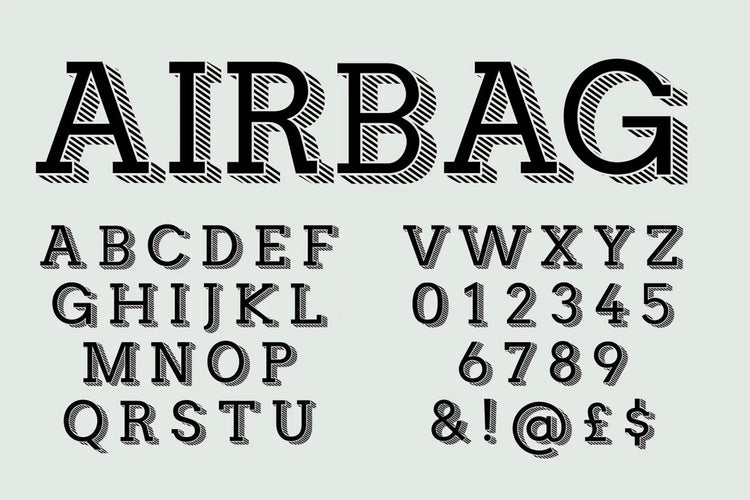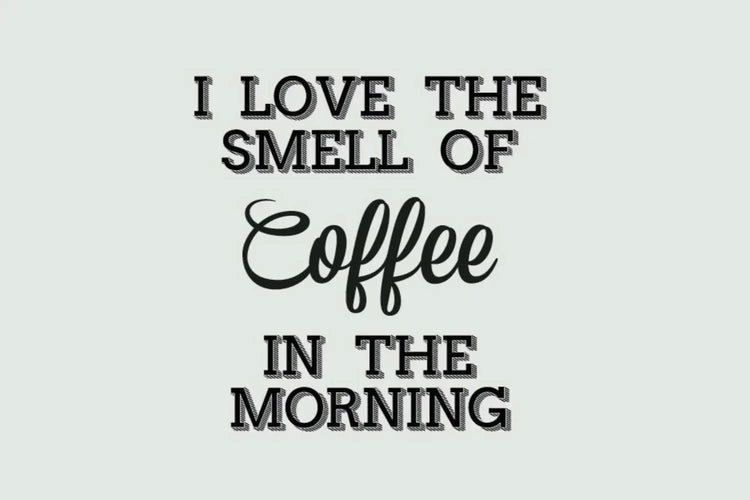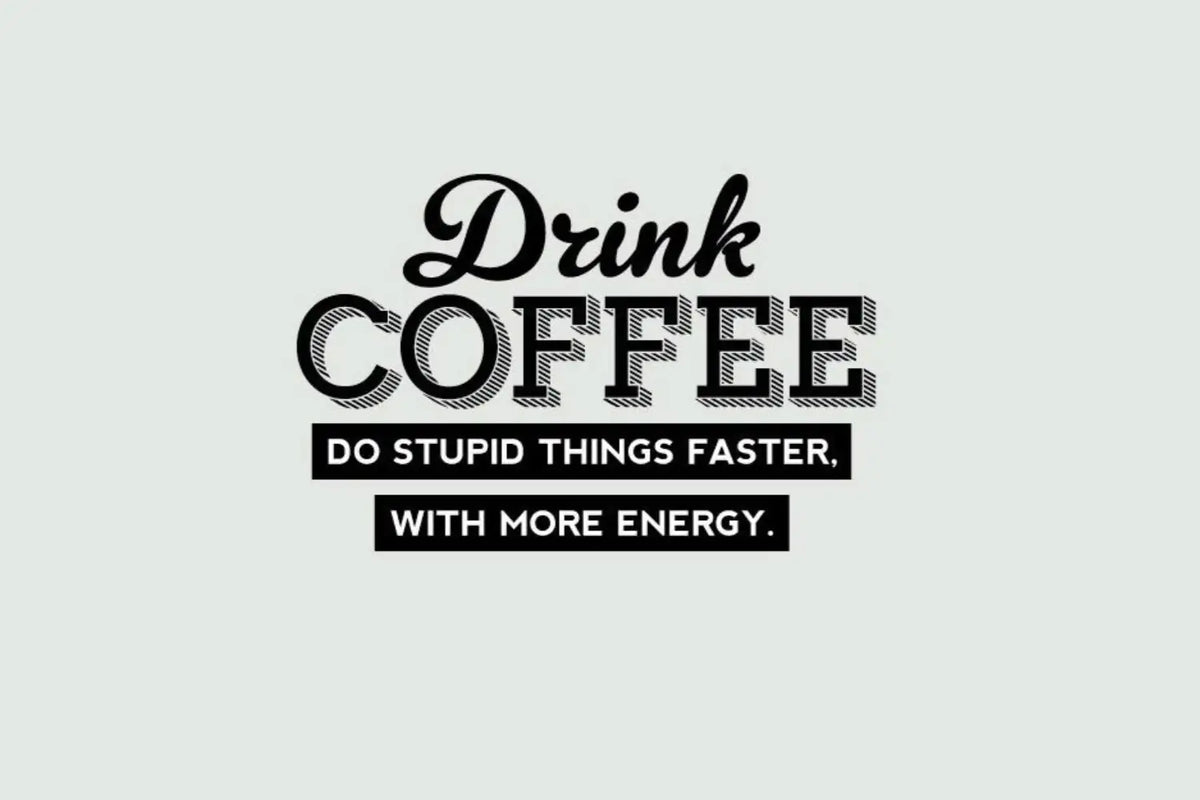
Airbag — Slab Serif Display Font
About Airbag font
Airbag is actually my very first font design. It has this cool, trendy vibe, aiming for that slick and clean slab look.
Now, about the name – I'm a huge Radiohead fan. So, I borrowed it from their song "Airbag" from the amazing album OK Computer. Trust me, and it's my all-time favourite.
It has over 300 characters including;
- Uppercase, lowercase, numbers, and punctuation
If the font Airbag were a celebrity
If the font Airbag were a celebrity, it would be the reliable and versatile actor Morgan Freeman. Just as Morgan Freeman's voice is instantly recognizable and trusted, Airbag font provides a clear and dependable typographic presence in the world of design.